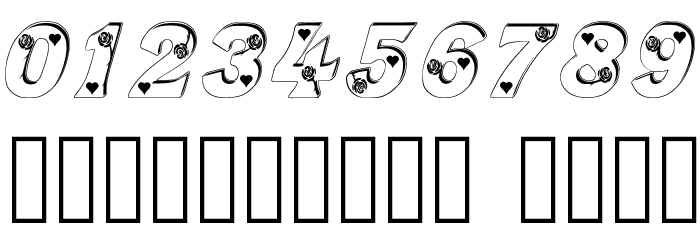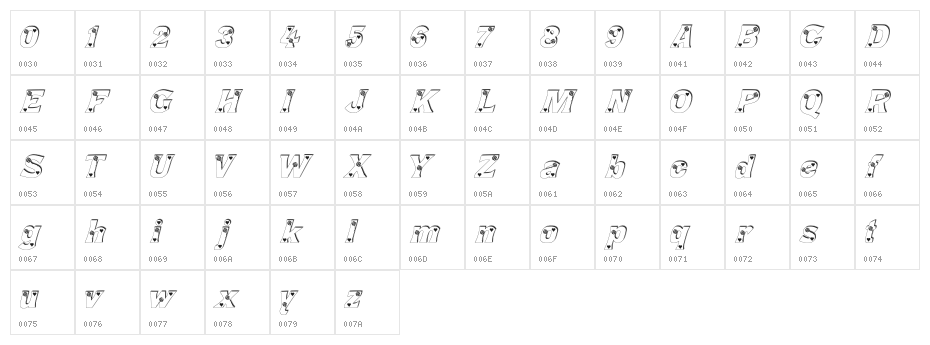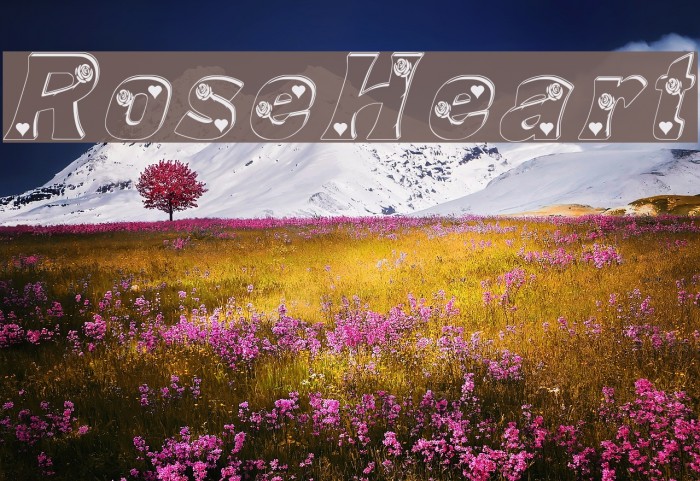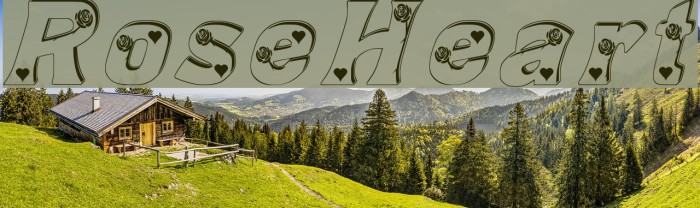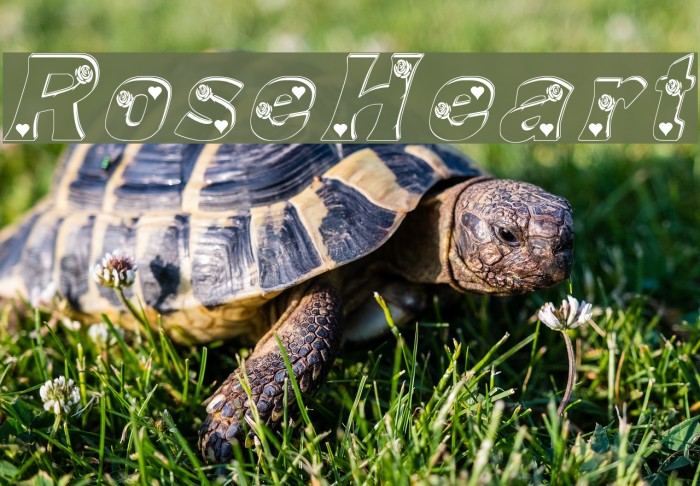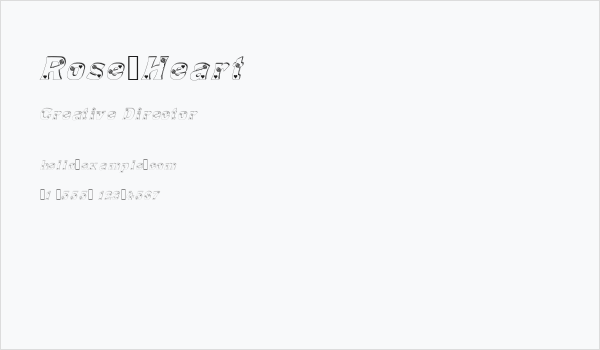
Rose_Heart Font
Rose_Heart Description
This decorative font features a unique design with intricate rose and heart motifs embedded within each character. The uppercase and lowercase letters, as well as the numerals, are adorned with these floral and heart elements, giving the font a romantic and whimsical feel. The characters are bold and slightly italicized, with a moderate contrast in stroke thickness. The overall style is playful and artistic, making it suitable for creative projects that require a touch of elegance and charm.
| Use Case | Headlines, Logos, Decorative text |
| Proposed Projects | Ideal for wedding invitations, greeting cards, romantic-themed posters, and decorative branding. |